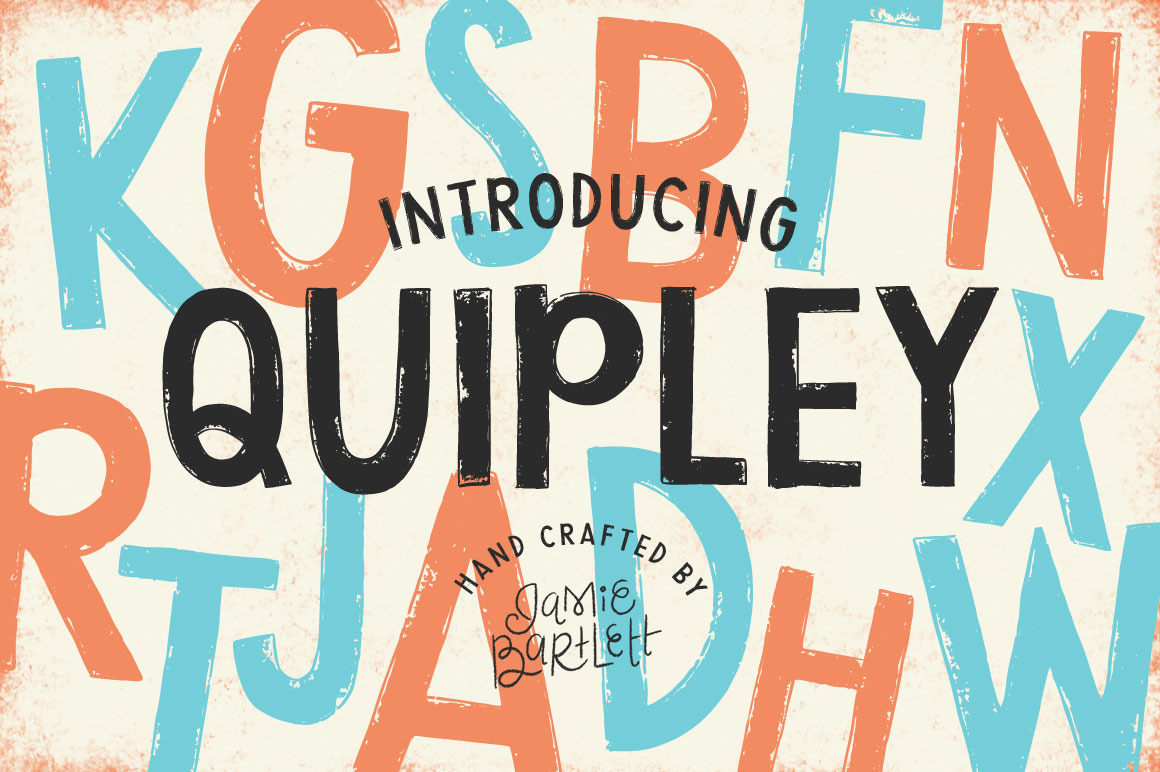
Quipley Font
Quipley is an uppercase hand drawn OTF font crafted with just the right amount of texture. This font works great for all kinds of projects, including: posters, logos, paper goods and so much more! It's sure to add some fun personality to any design.
Quipley includes:
- Uppercase letters
- Select special characters and punctuation (see photo for all glyphs listed)